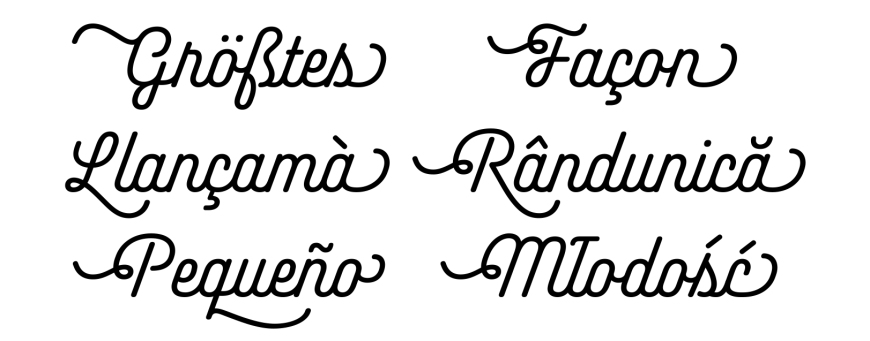
Even though Passenger Sans is an addition to two related ITF typefaces – Passenger Serif and Passenger Display – its publication is more than just a simple extension: Passenger Sans is one of the largest families we’ve ever published. For example, our previous Latin-script champions Ekster and Poppins each had 18 styles. Passenger Sans has 20. As a large sans serif family, Passenger Sans will be a great aid in editorial projects. We’re thrilled to see how designers around the world use it. You could build entire design systems using Passenger Sans’s fonts alone, or you could combine them with Passenger Serif and Passenger Display if you need contrasting styles.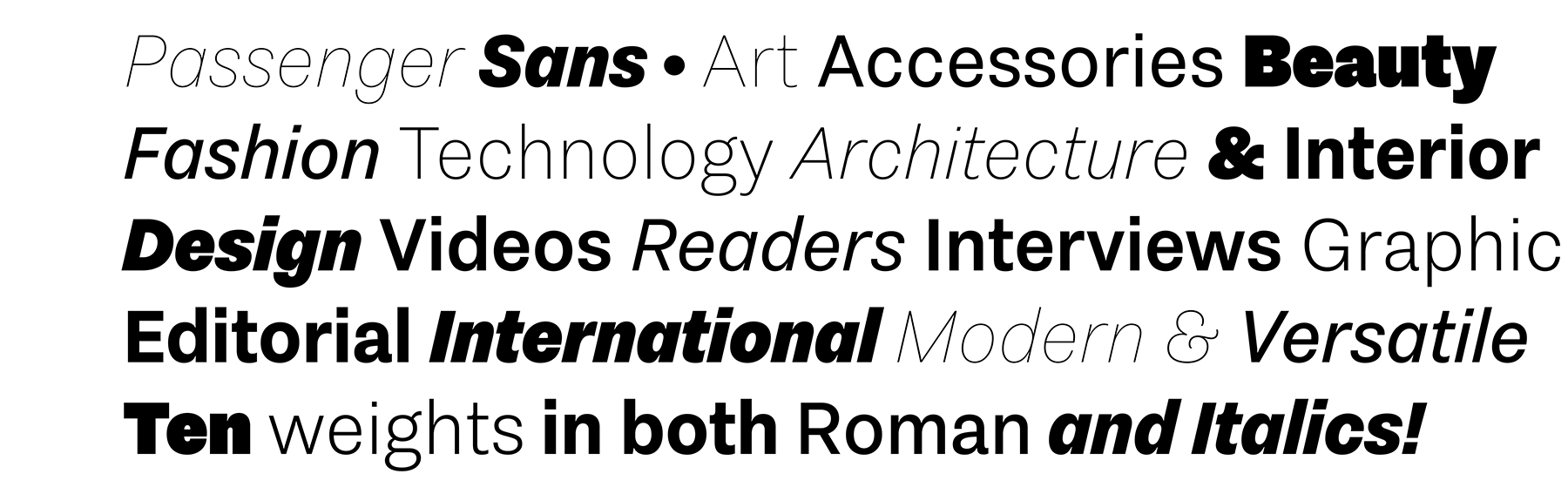
Akin is a monolinear script typeface designed in a single weight. Its letters’ designs combine geometric elements with a retro aesthetic, swashes, and a steep slope. Characters’ sides are straight, giving the typeface a condensed feeling overall. Akin’s design language feels reminiscent of both the 1950s and the 1990s, but there isn’t just one specific style that it cites. Instead, Akin is a timeless face. It looks like it could always have been a part of graphic design, despite only having been released in 2019. Like almost every good OpenType script face, Akin has a lot of alternates, which enliven designs composed with it. Whereas a normal Latin-script ITF font might have almost 400 glyphs – and a text-setting powerhouse like Passenger Sans has 471 – Akin’s character set includes twice as many glyphs: 996.
Passenger Sans’s letterforms have compact proportions, too. Their apertures are also small, just have a look at the openings in the‘a’, ‘c’, or ‘e’, etc and you’ll see what we mean. In the design’s upright fonts, all letterforms’ strokes end at horizontal or vertical angles, not diagonals. Long passages of text set with the typeface are comfortable to read. As a family, Passenger Sans includes ten weights – ranging in style from Thin through Ultra. Each weight has both an upright font and an italic on offer. The fonts’ default numerals are proportionally-spaced lining figures. Via the OpenType features, there are also oldstyle figures and tabular figures available. The ascenders of the lowercase letters rise up above the tops of the capitals. In the upright fonts, the ‘a’ and the ‘g’ are double-storied. In the italics, they’re single-storied. The ‘opposite’ version is always available as an OpenType alternate. Fonts have alternate forms of ‘Q’ and the ampersand (&) as well. Passenger Serif – this family’s serif companion – is a Clarendon-style typeface, and its Passenger Display cousin dials up that serif family’s contrast significantly. Each of those related families contain 14 styles.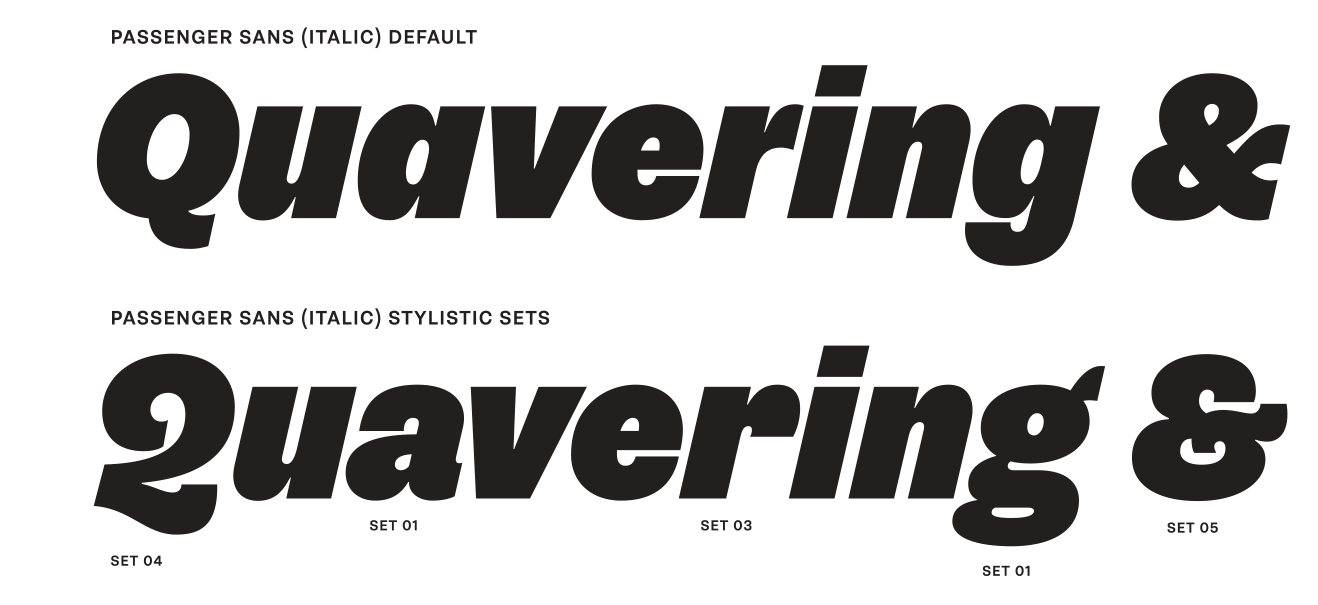
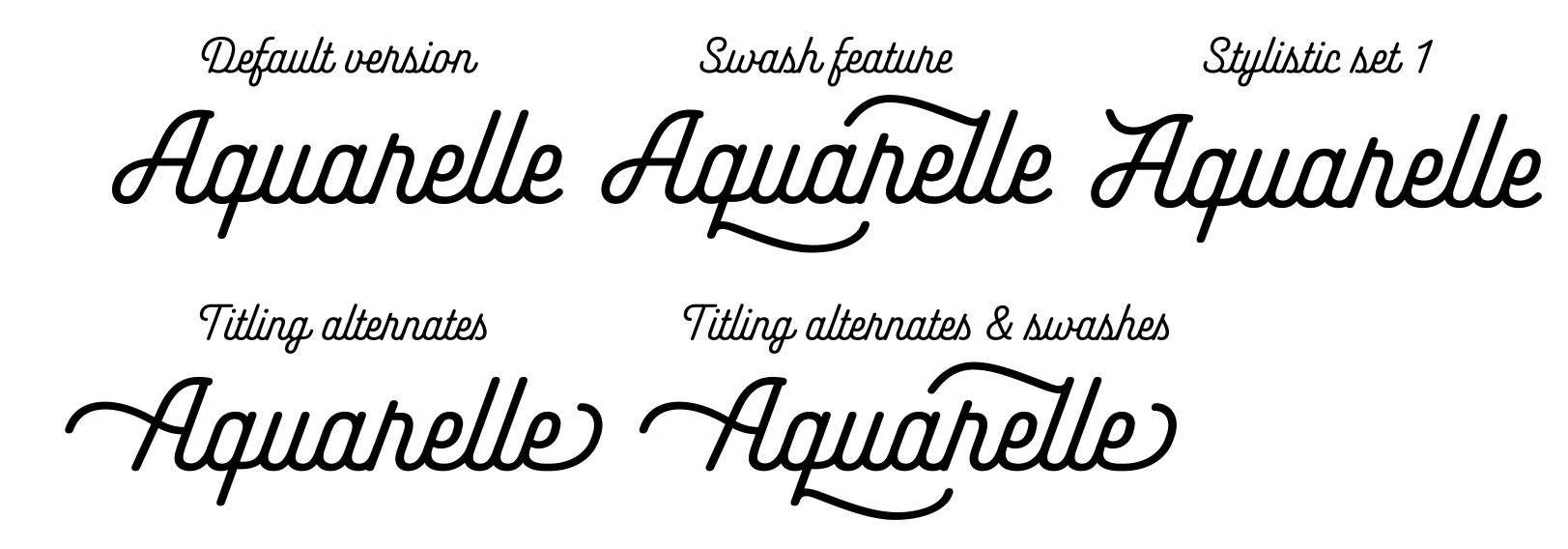
Who’s behind these fonts? Passenger Sans was designed by the same duo that was behind Passenger Serif and Passenger Display: Diana Ovezea and Samo Ačko. Diana Ovezea – a designer behind a whole range of ITF’s Latin-script typefaces – is also Akin’s co-designer. She made it together with Sabina Chipară.